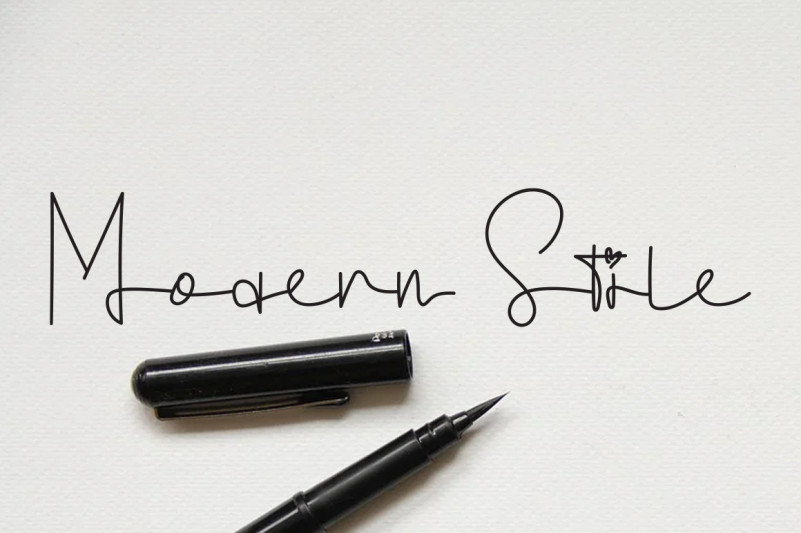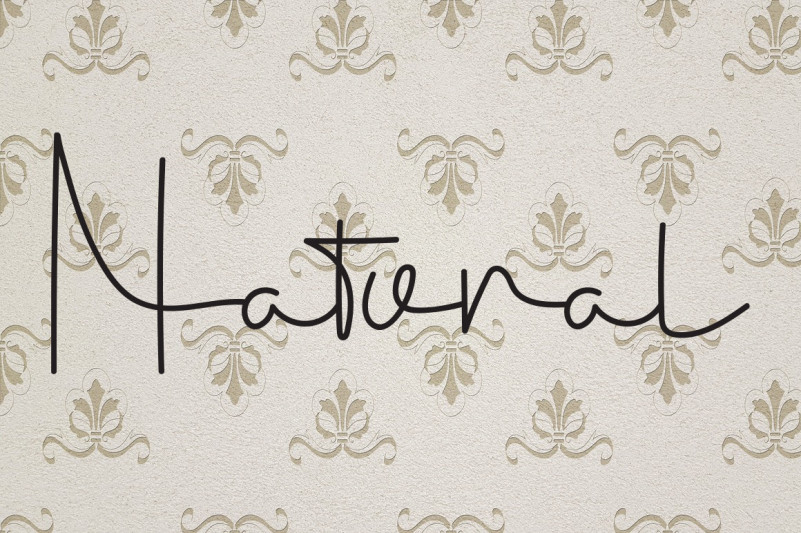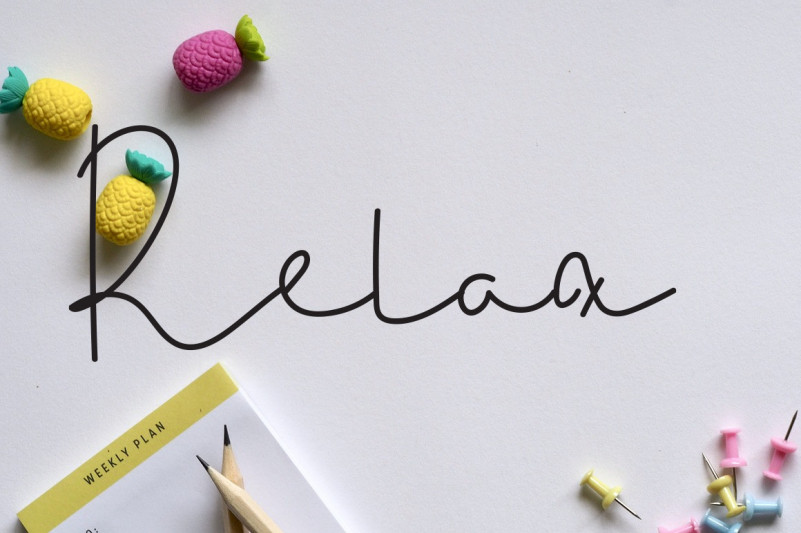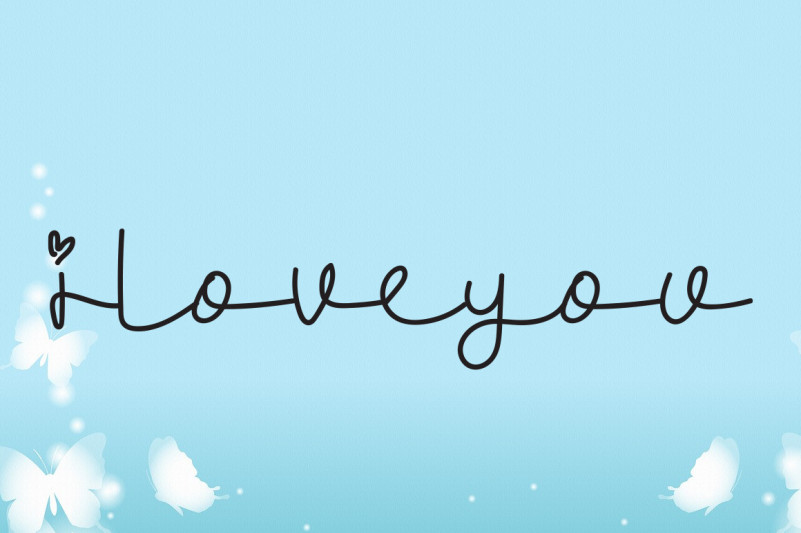
Always Together Font
Always Together Handwritten Font
This is a dainty, thin and stylish handwritten font. This gentle font will look gorgeous on a variety of design ideas. It will add a joyful and romantic touch to each of your projects!
Always Together Handwritten Font is a very talented product for you to use,
Latest letters that can be used for various products, invitations, wall hangings, weddings, and more.